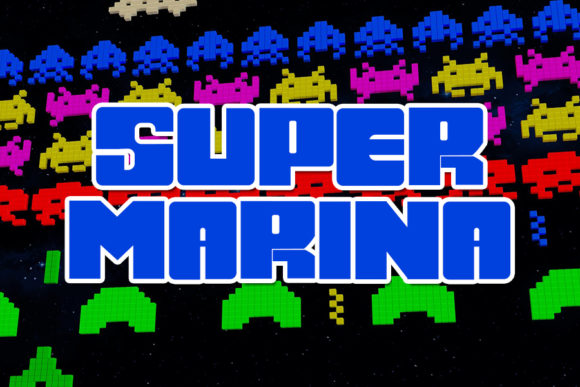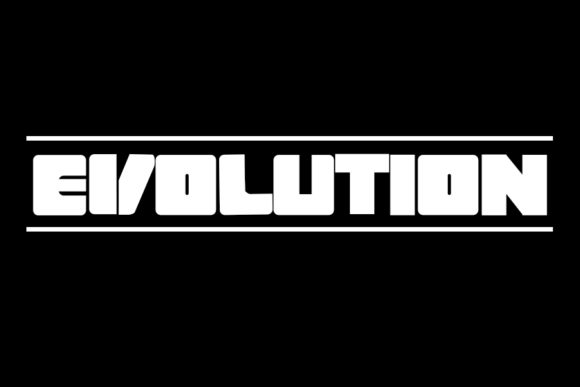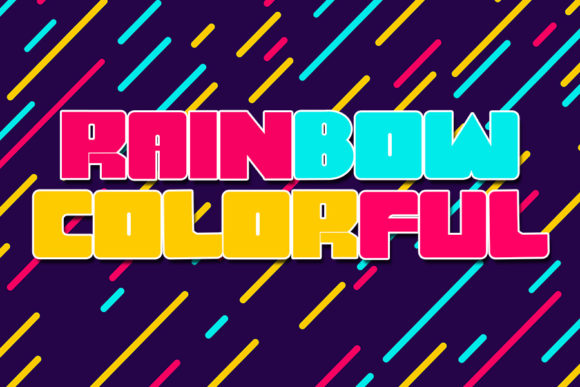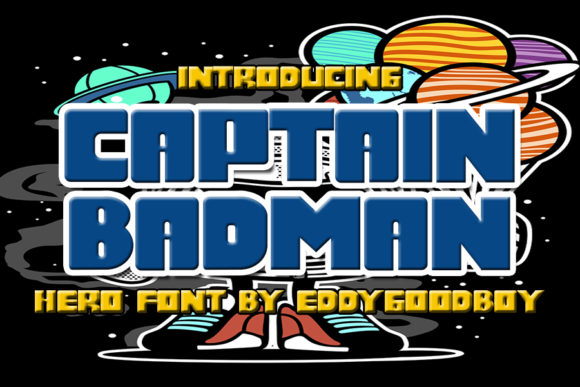
The Ultimate Design Game-Changer: Captain Badman Font
I’ll never forget the time I was working on a project for a client who needed a bold, eye-catching font to make their brand stand out. I had spent hours scouring the internet for the perfect font, but nothing seemed quite right. That was until I stumbled upon Captain Badman Font. This fun and chunky lettered display font has been a game-changer for my design work, and I’m excited to share its awesomeness with you! 😊
So, what makes Captain Badman Font so special? Here are a few things that I absolutely love:
- ✨ Unique and quirky design: Captain Badman Font has a one-of-a-kind personality that adds a touch of whimsy to any design project.
- ✅ Highly versatile: Whether you’re working on a logo, poster, or social media graphic, this font can adapt to any topic or style.
- 💥 Attention-grabbing: The chunky, bold letters are perfect for making a statement and grabbing the viewer’s attention.
Of course, no font is perfect, and Captain Badman Font does have a few quirks:
- 🤔 Limited use for body text: Due to its bold and chunky design, Captain Badman Font is best suited for headlines and titles, rather than body text.
- ⚠️ May not work well with smaller sizes: The font’s bold design can become overwhelming when scaled down, so it’s best used at larger sizes.
- Experiment with the font’s OpenType features, such as glyphs and stylistic alternates, to add more personality to your design.
- Take advantage of the font’s OpenType features, such as ligatures and stylistic sets, to add more visual interest to your design.
While the true story behind Captain Badman Font’s creation may be unknown, it’s easy to imagine that the designer was inspired by a love of bold, eye-catching typography. Perhaps they wanted to create a font that would add a touch of whimsy and fun to any design project. Whatever the inspiration, Captain Badman Font is sure to bring a smile to your face and a dash of personality to your designs!
| Q: What type of projects is Captain Badman Font best suited for? | A: Captain Badman Font is perfect for projects that need a bold, eye-catching font, such as logos, posters, and social media graphics. |
| Q: Can I use Captain Badman Font for body text? | A: While Captain Badman Font is a beautiful font, it’s best suited for headlines and titles, rather than body text. |
| Q: Is Captain Badman Font easy to read? | A: Captain Badman Font is a bold font, and while it’s easy to read at larger sizes, it may become overwhelming at smaller sizes. |